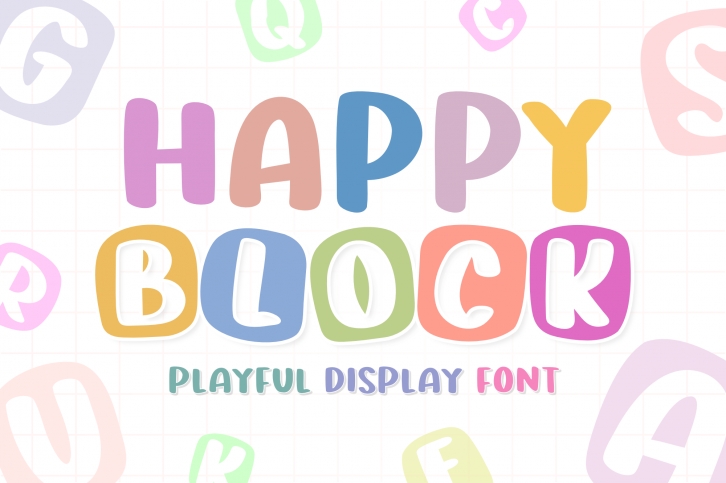
Happy Block is fresh and jolly display font. It is perfect for classrooms and crafty themes! This font will instantly make your creation more appealing than any others.